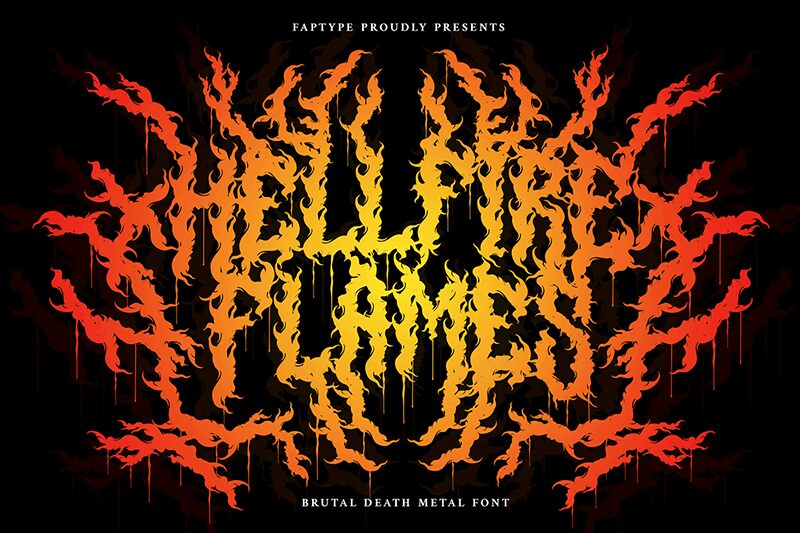
Hellfire Flames font is a gothic and modern style display font by Ferry Ardana Putra. With chaotic condensed letters, this organic logotype is both unique and intense. It has horror vibes and it can definitely leave a dramatic impact on your viewers that can be solely attributed to its aggressive appearance.
Hellfire Flames